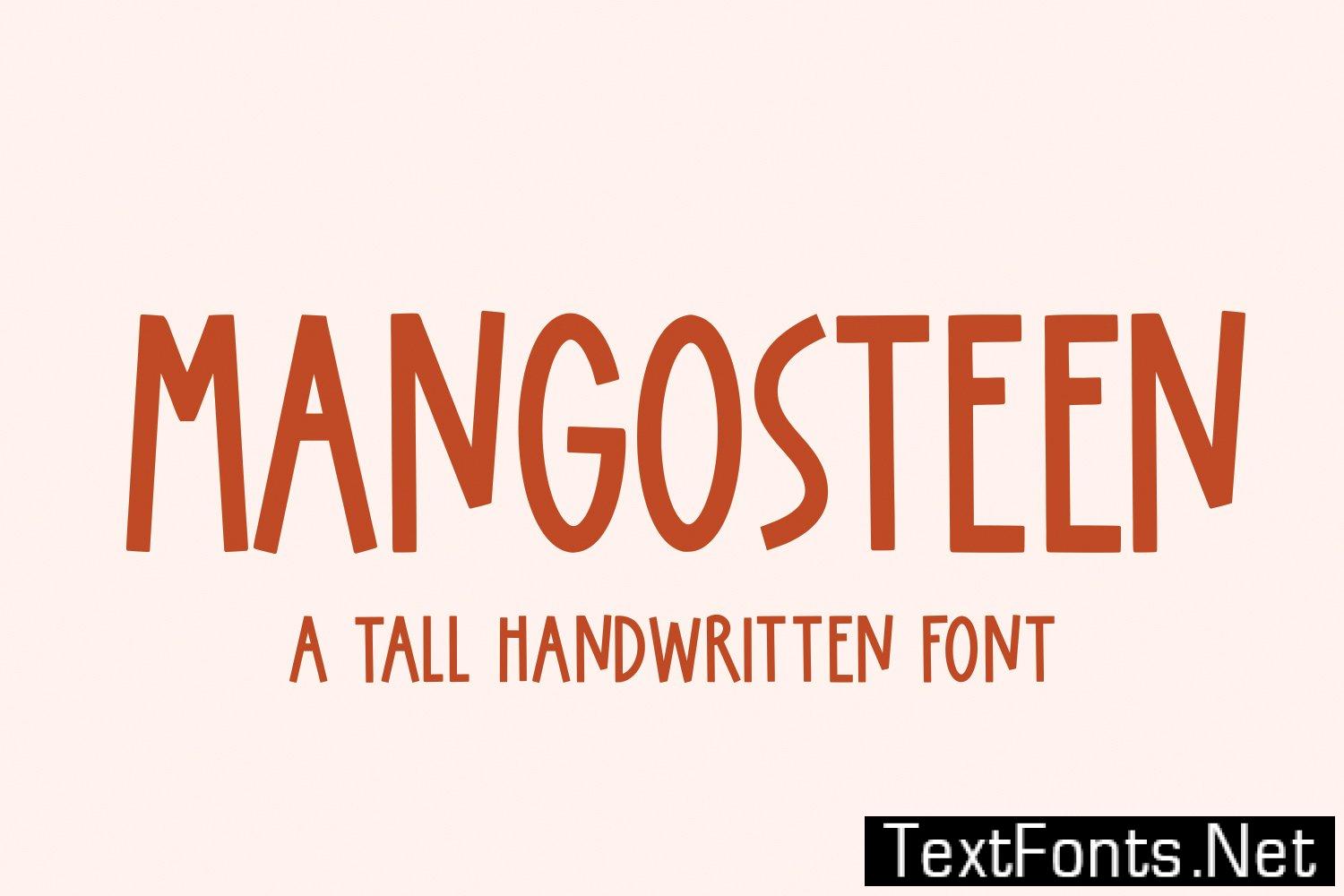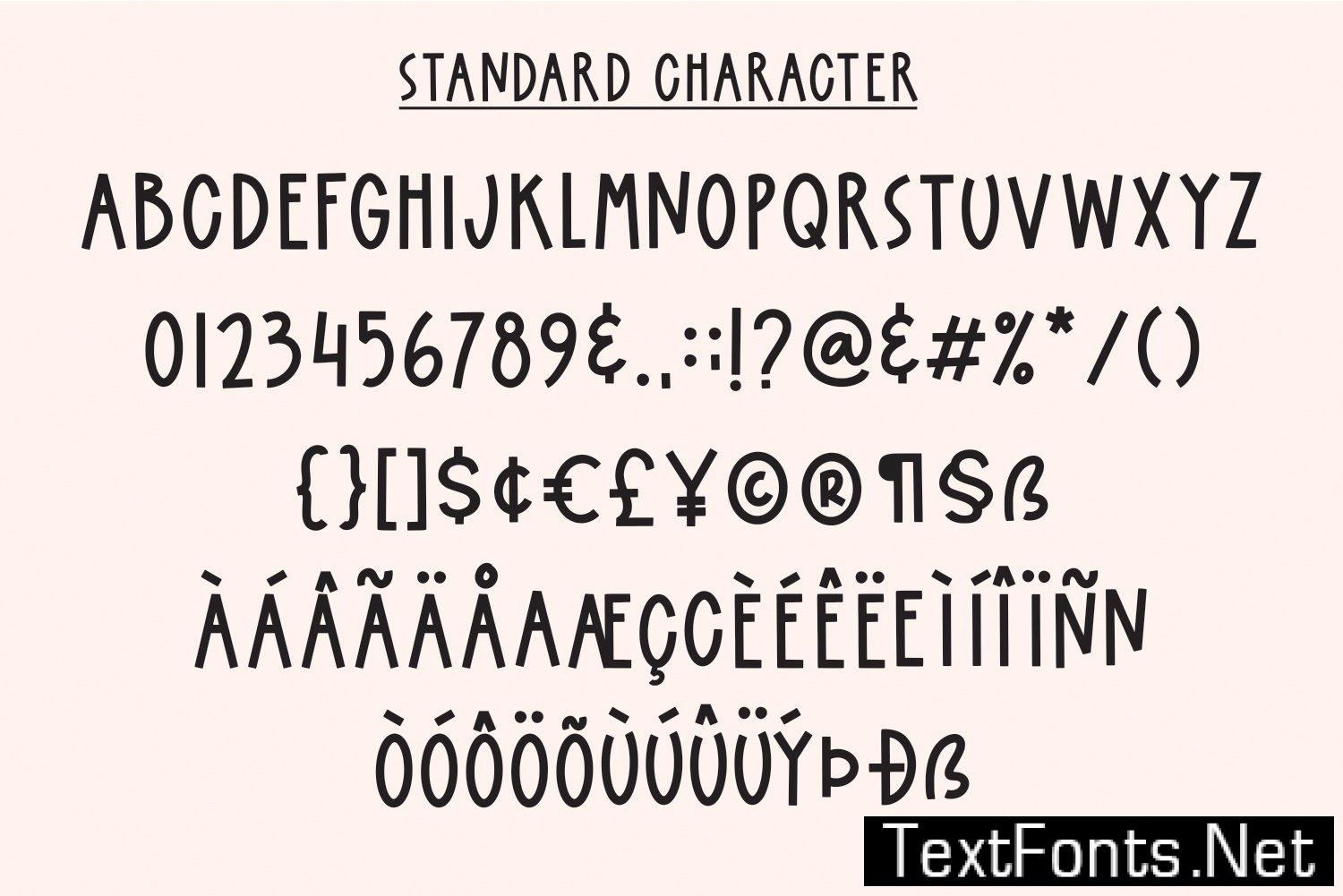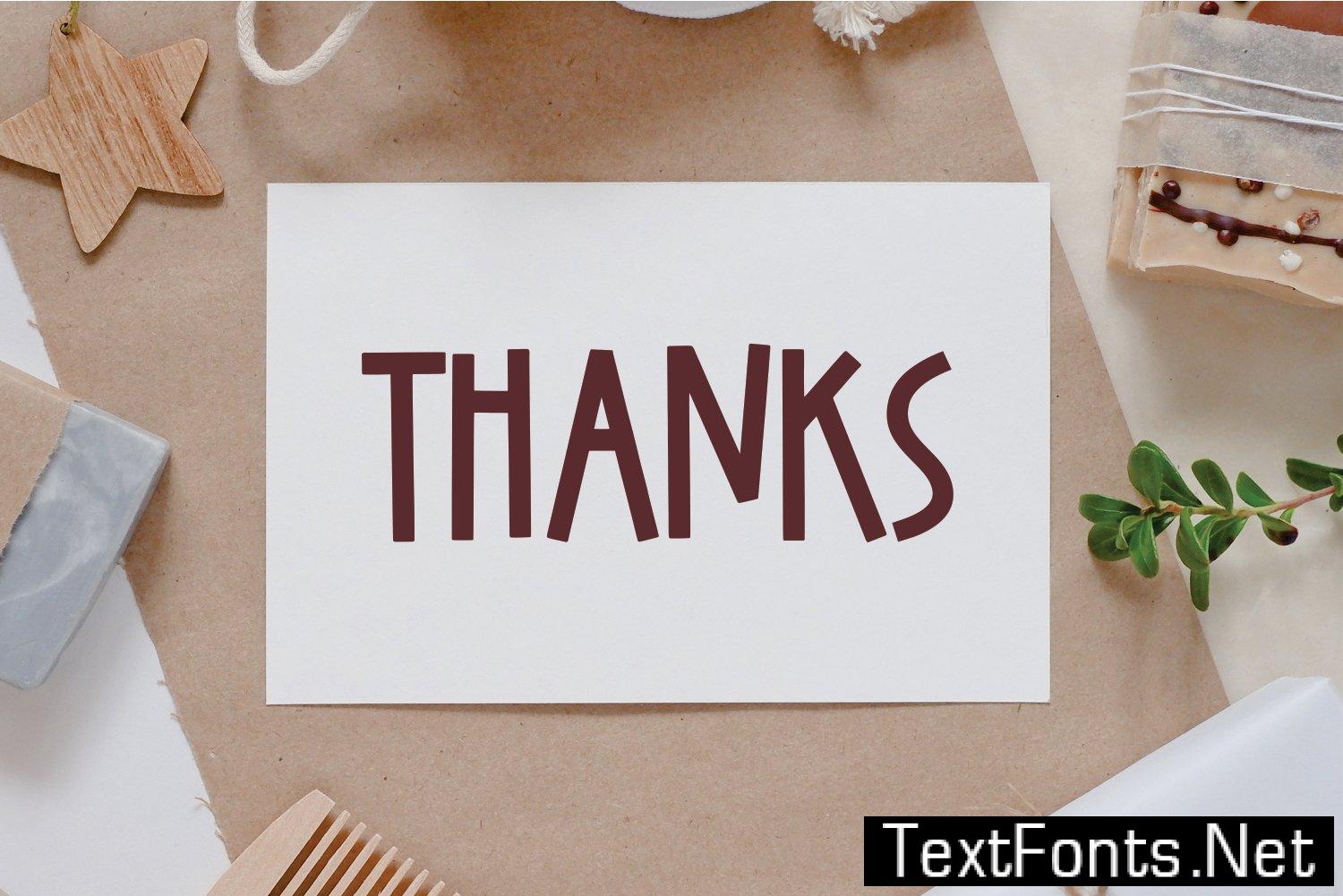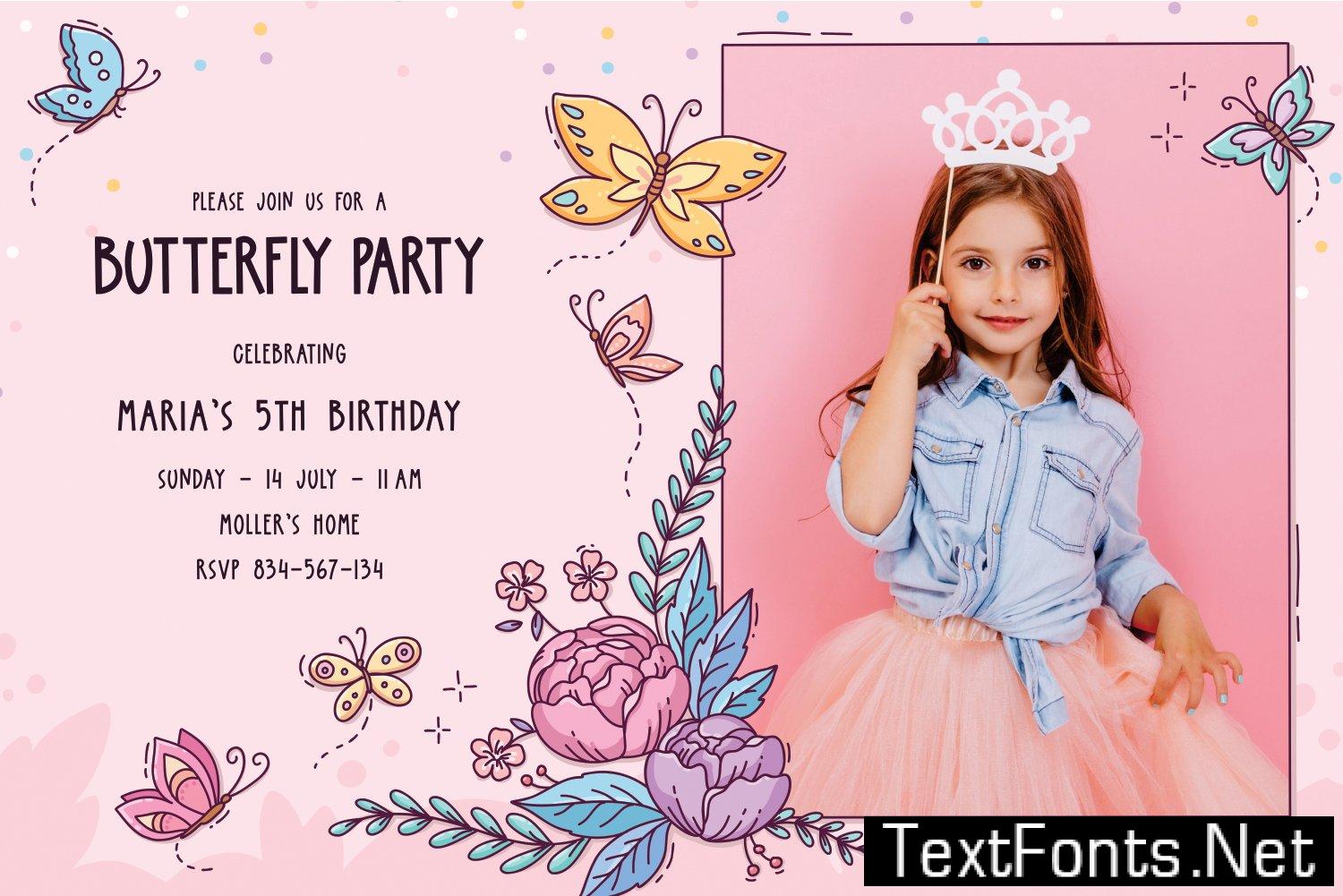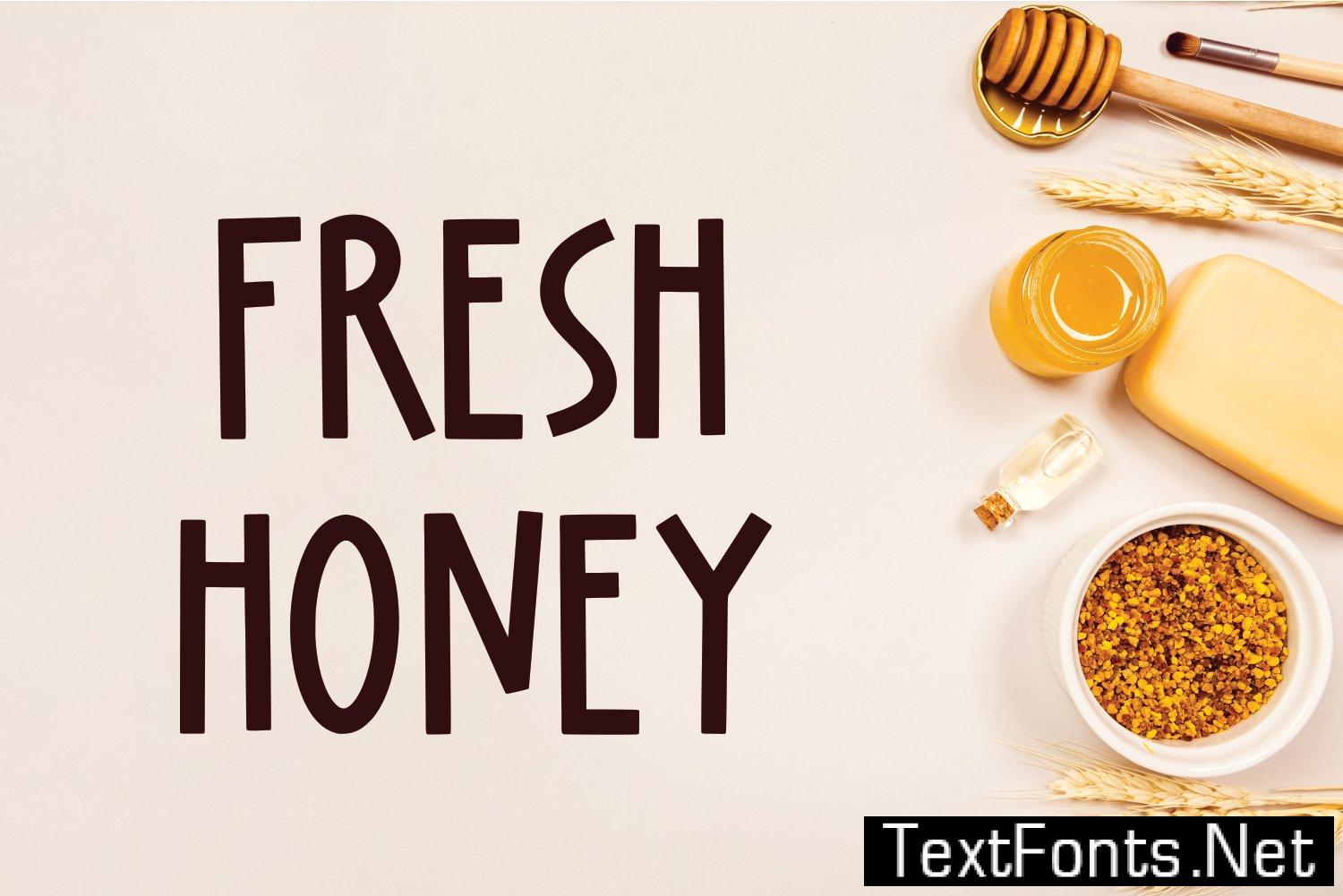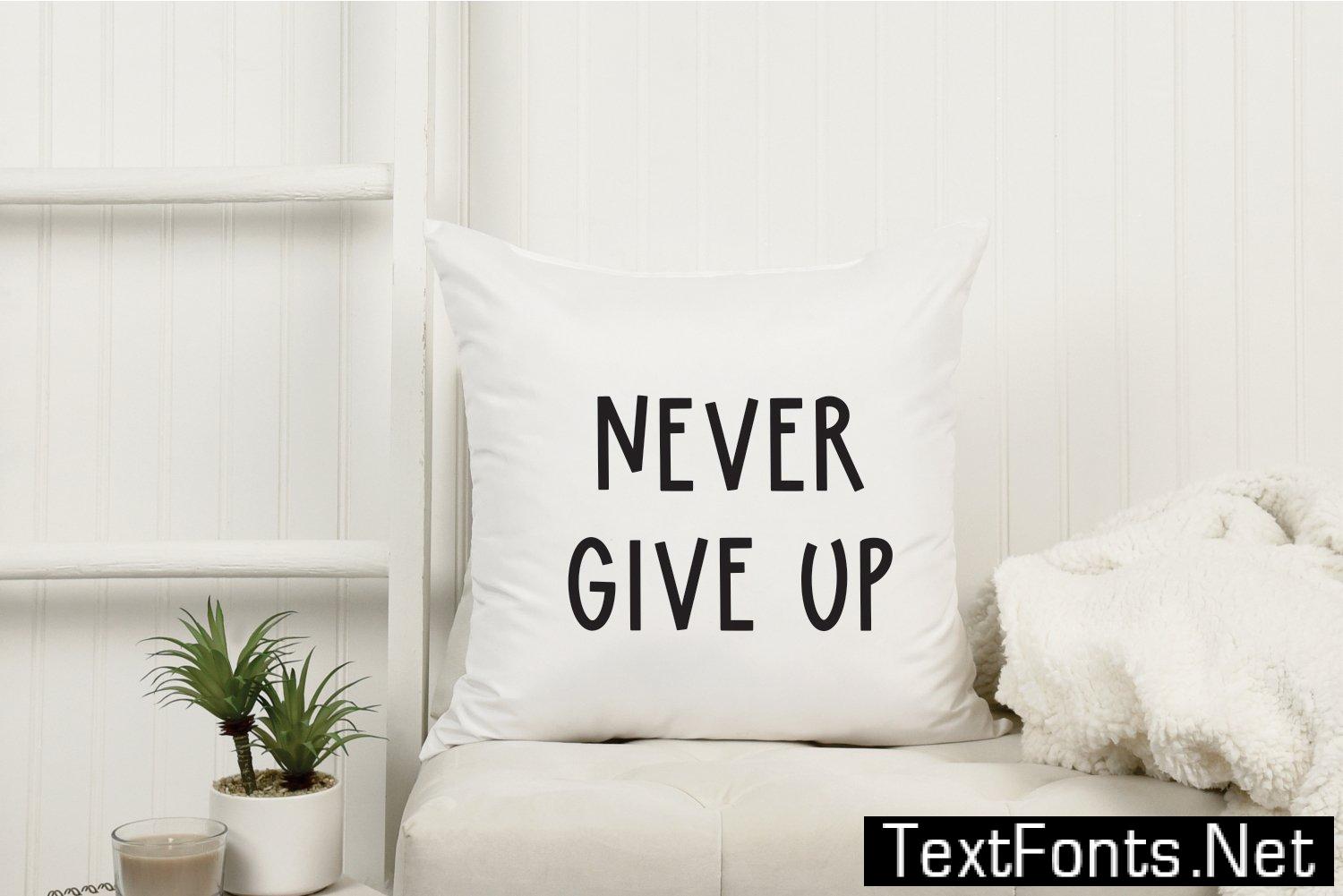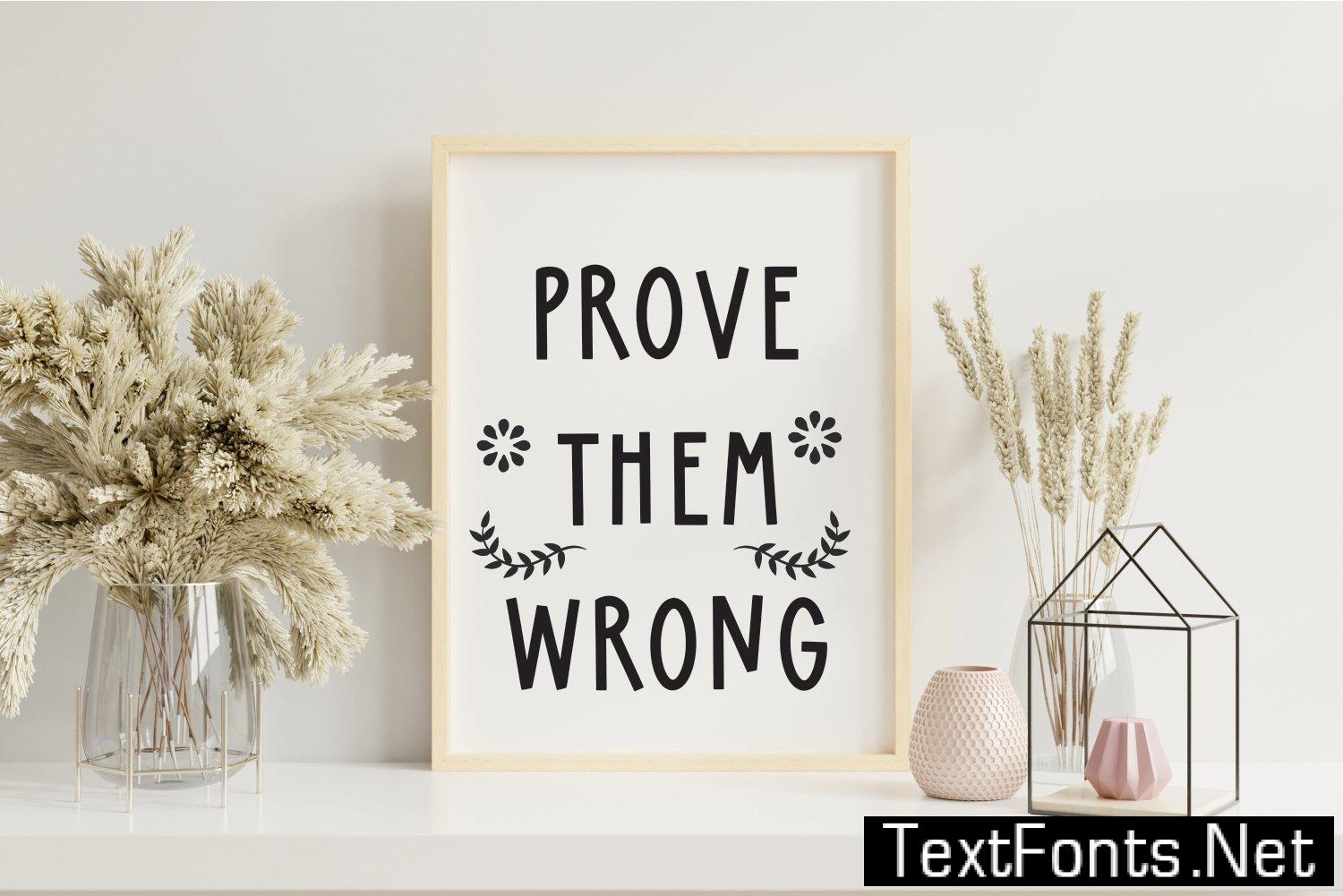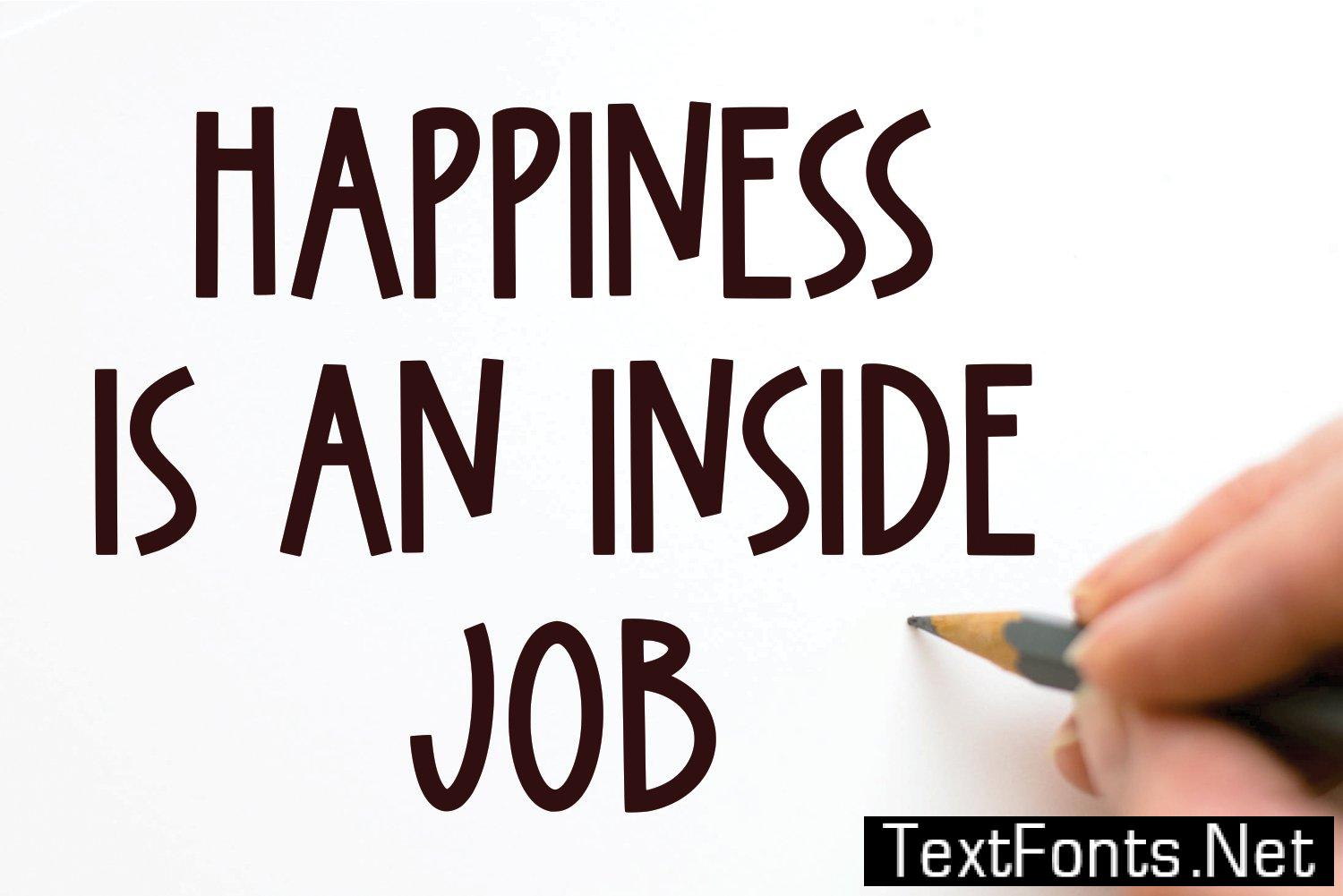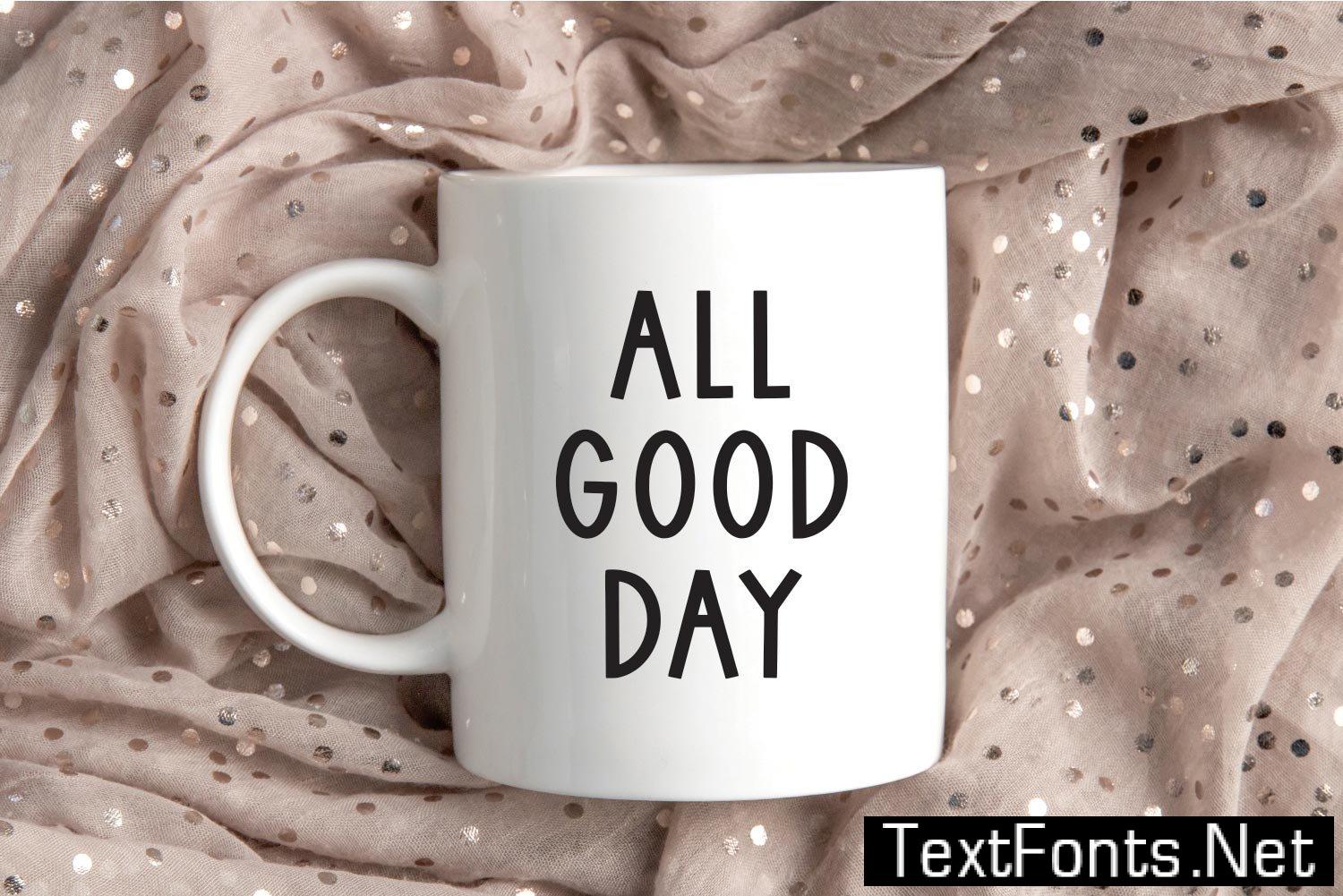
Mangosteen is a fun handwritten font.
It is a trendy cute display font.
This font is perfect for Cricut projects, procreate designs, crafting, branding, decorating, farmhouse designs, shirts, SVG designs, branding, blogs, logos, invitations, and more!
Also with their help, you can create a logo or beautiful frame for your home.
Or just use for your business, book covers, stationery, marketing, magazines, and more.
Fall in love with its incredibly versatile style and use it to create spectacular designs!
Use this font for any crafting project that requires a personalized look!